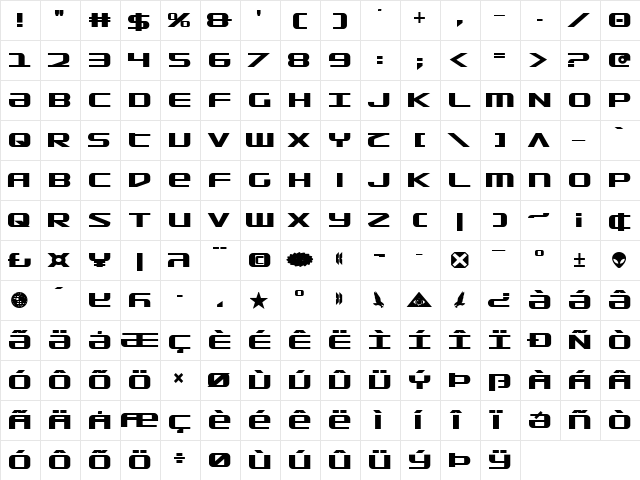
SDF Bold Bold
Design Context for SDF Bold Typeface
SDF Bold is a composed and adaptable typeface that performs quietly and consistently across a wide range of design contexts. Its bold stroke weight gives it real presence on the page.